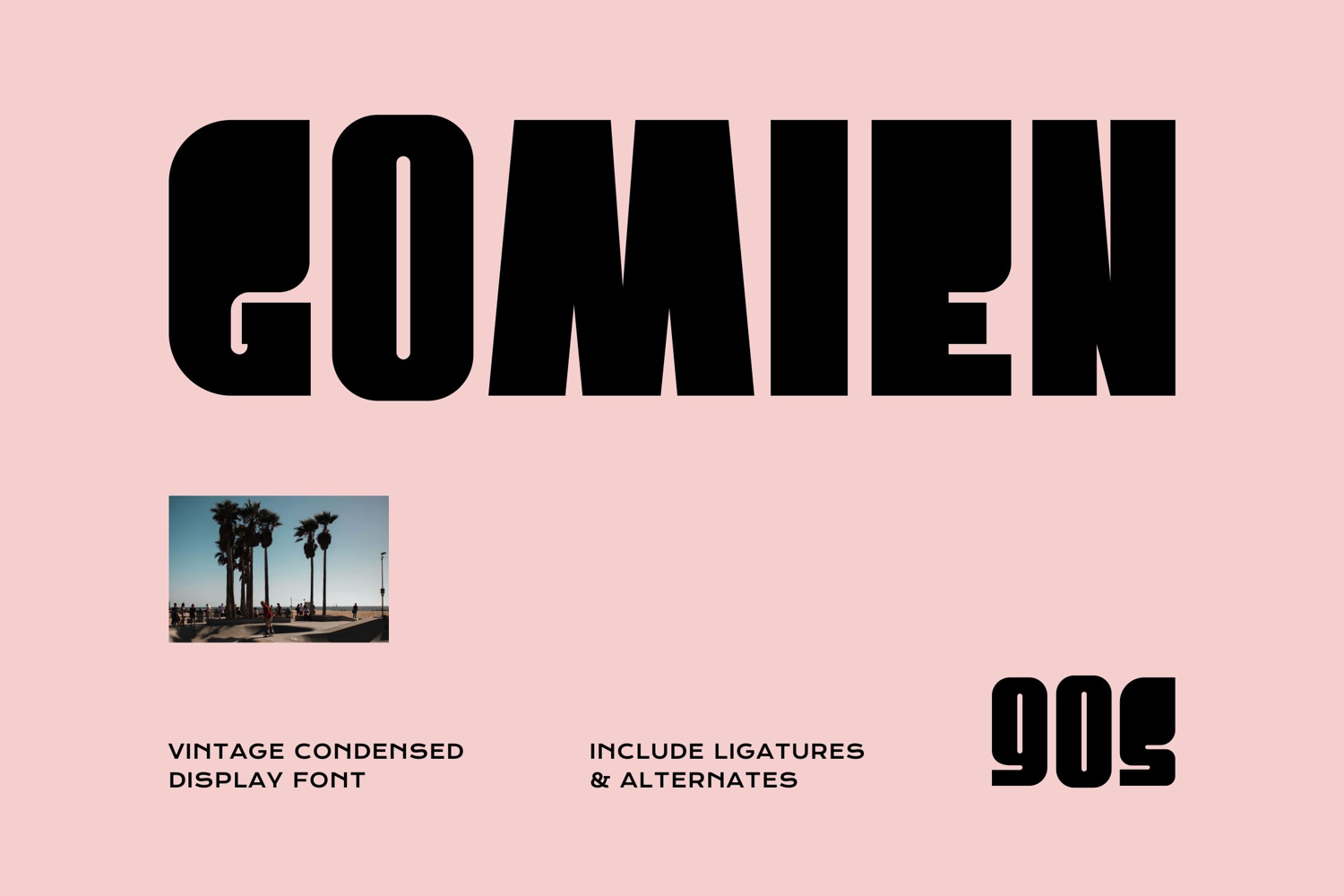
Gomien - Vintage Condensed Font
Gomien is a vintage condensed display typeface with a strong 90s retro vibe. This font features thick, heavy strokes and unique, geometric letterforms that give it a distinct, eye catching presence.
Its condensed shape makes it perfect for impactful headlines, posters, album covers, and branding that need a strong vintage or retro vibe. Its condensed and heavy style works great in fashion, music, and entertainment designs, especially those inspired by the 90s. It’s also ideal for eye-catching social media graphics, event flyers, and packaging that want to stand out with a nostalgic yet modern feel.
• Ton of Glyphs
• Uppercase and Lowecase Characters.
• Numerals and Punctuations.
• Alternates and Ligatures.
• Multilingual Support.